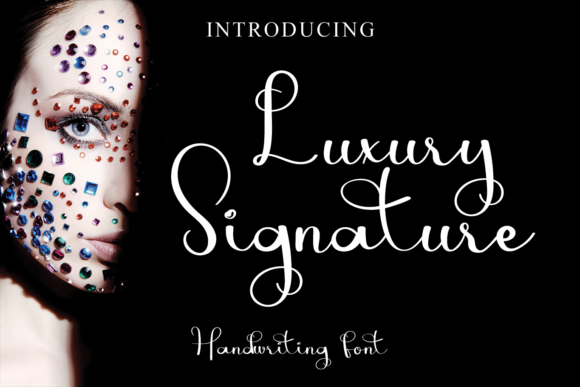
Luxury Signature Font
About Luxury Signature Font
Luxury Signature is a fashionable, cursive and thin script font. This font is neatly crafted and highly detailed. Whatever the topic, it will be a wonderful asset to your font library, as it has the potential to enhance any creation.